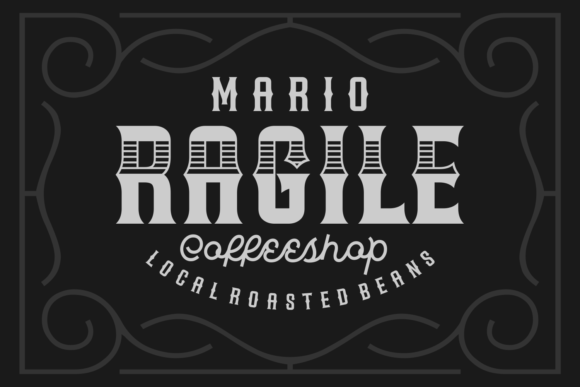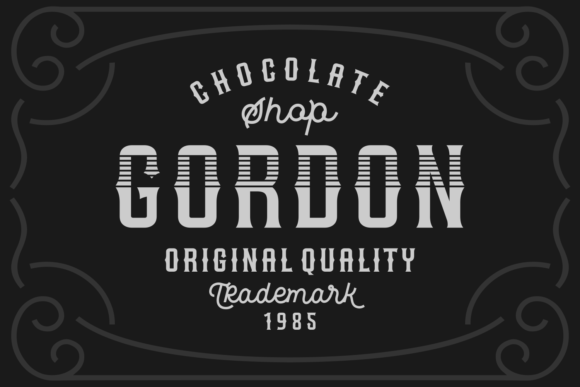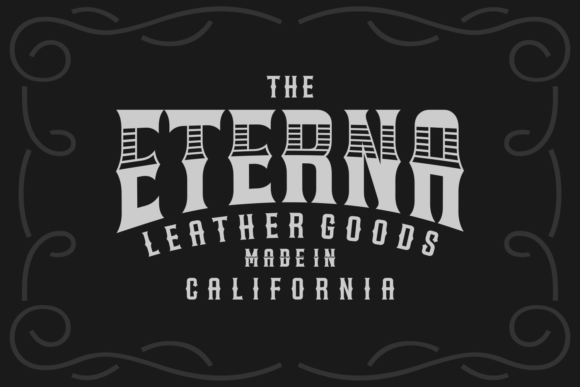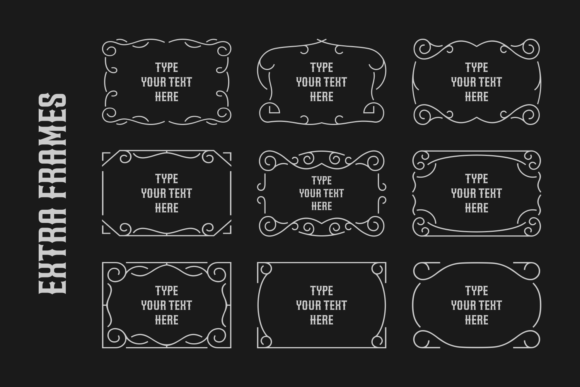
Besta Baru Font: A Vintage Typeface with a Bold, Retro Exterior
In the world of typography, few fonts manage to capture the essence of a bygone era as effectively as Besta Baru. This vintage typeface boasts a bold, retro exterior that instantly transports designers and crafters back to a time of classic elegance and sophistication. With its stunning alternates, intricate details, and vintage-looking frames, Besta Baru is an excellent addition to any design project that requires a touch of nostalgia and glamour.
The Design and Features of Besta Baru
Besta Baru is more than just a font; it’s a design statement. Its bold, retro exterior is characterized by clean lines, classic proportions, and a sense of confidence that commands attention. The font comes packed with an impressive array of features, including:
- Stunning Alternates: Besta Baru includes a range of alternate characters that add variety and creativity to any design project. These alternates include carved striped, carved outline, and half-filled characters, allowing designers to experiment with different styles and effects.
- Vintage Looking Frames: The font also contains a set of vintage-looking frames inside the extra characters, providing designers with a wealth of creative possibilities. These frames can be used to add a touch of elegance and sophistication to any design project.
Why Designers and Crafters Love Besta Baru
So, why has Besta Baru become a favorite among designers and crafters? Here are just a few reasons:
- Versatility: Besta Baru is an incredibly versatile font that can be used in a wide range of design projects, from branding and advertising to packaging and signage.
- Elegance: The font’s classic, retro exterior exudes elegance and sophistication, making it perfect for designs that require a touch of luxury and refinement.
- Creativity: With its stunning alternates and vintage-looking frames, Besta Baru offers designers a wealth of creative possibilities, allowing them to experiment with different styles and effects.
How to Use Besta Baru in Your Design Projects
Using Besta Baru in your design projects is easy. Here are a few tips to get you started:
- Pair it with Other Fonts: Besta Baru can be paired with other fonts to create a unique and visually appealing design. Try pairing it with a sans-serif font for a bold, modern look.
- Experiment with Alternates: Don’t be afraid to experiment with the font’s stunning alternates. Try using different alternates to add variety and interest to your design.
- Add a Vintage Touch: Use the font’s vintage-looking frames to add a touch of nostalgia and elegance to your design.
Besta Baru is a vintage typeface with a bold, retro exterior that is sure to capture the hearts of designers and crafters. With its stunning alternates, intricate details, and vintage-looking frames, this font offers a wealth of creative possibilities for any design project. Whether you’re looking to add a touch of elegance and sophistication or simply want to experiment with a new font, Besta Baru is an excellent choice.
Key Features of Besta Baru Font
| Font Style | Bold, Retro |
| Alternates | Carved striped, carved outline, half-filled characters |
| Vintage Frames | Set of vintage-looking frames inside extra characters |
| Use Cases | Branding, advertising, packaging, signage, and more |